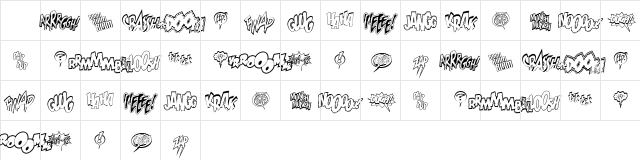
WildAndCrazySFX Regular Free Font
WildAndCrazySFX Regular
Design Context for WildAndCrazySFX
WildAndCrazySFX is a composed and adaptable typeface that performs quietly and consistently across a wide range of design contexts.